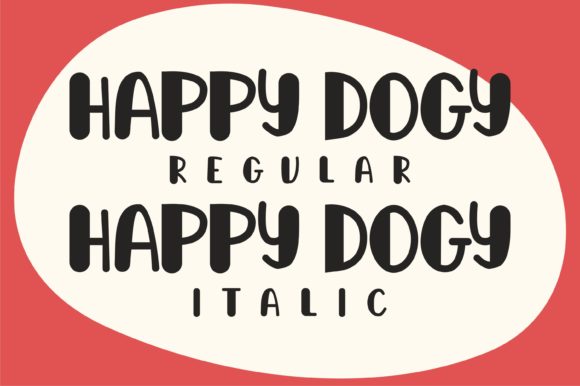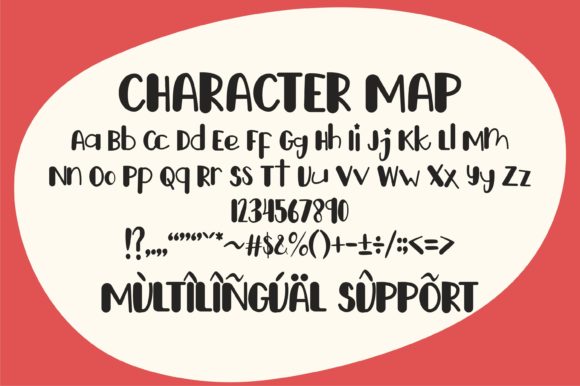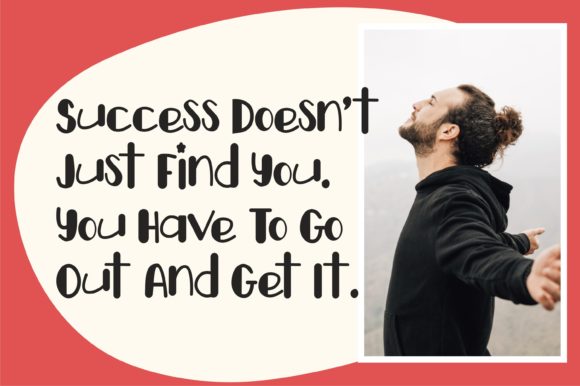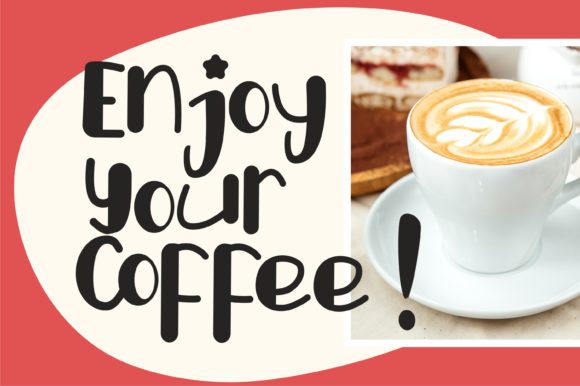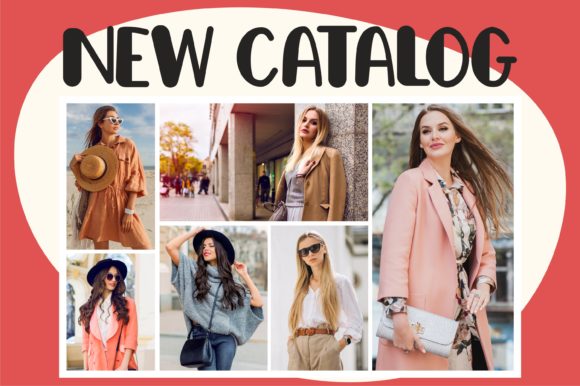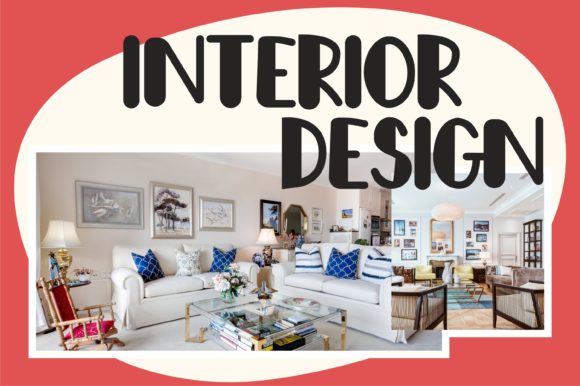
Introducing Happy Dogy Font: The Quirky Display Font to Brighten Up Your DIY Projects
Are you tired of using the same old fonts for your DIY projects? Do you want to add a touch of playfulness and whimsy to your designs? Look no further than Happy Dogy Font, a quirky display font that’s sure to bring a smile to your face. With its unique style and playful look, Happy Dogy Font is the perfect addition to any crafty project.
What is Happy Dogy Font?
Happy Dogy Font is a display font that’s designed to make a statement. Its quirky and fun style is perfect for adding a personal touch to your DIY projects, whether you’re working on a craft, a sign, or a piece of art. The font features a unique and playful design that’s sure to stand out from the crowd.
Why You’ll Fall in Love with Happy Dogy Font
There are many reasons to fall in love with Happy Dogy Font. Here are just a few:
- Unique Style: Happy Dogy Font has a one-of-a-kind design that’s sure to make your projects stand out.
- Playful Look: The font’s playful look is perfect for adding a touch of whimsy to your designs.
- Versatile: The font can be used for a wide range of projects, from crafts and signs to art and more.
How to Use Happy Dogy Font
Using Happy Dogy Font is easy. Here are a few tips to get you started:
- Pair it with Other Fonts: Happy Dogy Font pairs well with other fonts, so feel free to get creative and experiment with different combinations.
- Use it for Headings: The font is perfect for headings and titles, where its playful look can really shine.
- Add it to Your Crafts: Happy Dogy Font is perfect for adding a personal touch to your crafts, such as scrapbooking, card making, and more.
Happy Dogy Font offers a range of benefits for designers and crafters, including:
- Increased Creativity: The font’s unique style and playful look can help inspire creativity and bring new ideas to life.
- Professional-Looking Results: The font’s high-quality design ensures professional-looking results, even for beginners.